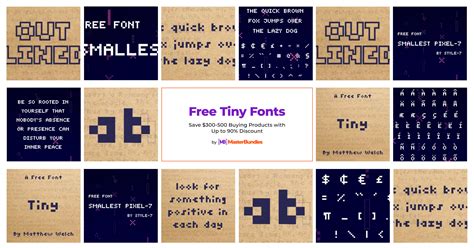
Tiny Fonts - A Guide To Small Typefaces In 2023
What are Tiny Fonts?
Tiny fonts are typefaces designed to be used at small sizes. They generally have a low x-height, meaning the distance between the baseline and the height of lowercase letters is reduced. This gives the typeface a more condensed appearance, allowing it to be used in a very small size without sacrificing legibility. In 2023, tiny fonts are more popular than ever and are widely used in a variety of print and digital projects.
Why Use Tiny Fonts?
Tiny fonts can be used for a variety of reasons. In print, they are perfect for adding captions to photographs or for smaller headlines. On the web, tiny fonts are often used for body copy, especially on mobile devices where space is limited. Tiny fonts can also be used to create a sense of space and airiness, which can be helpful when trying to communicate a minimalist or modern aesthetic.
Finding the Right Tiny Font
When looking for a tiny font, it is important to consider both the design of the typeface and its technical characteristics. Many type designers create typefaces specifically designed to be used at small sizes, so look for typefaces with low x-heights and a large character set. It is also important to consider the technical characteristics of the font, such as spacing, kerning and hinting. The right font can make a huge difference in the legibility of the text.
Examples of Tiny Fonts
There are a few popular typefaces that are commonly used for tiny fonts. These include FF Info, FF Meta, and FF Unit. All of these typefaces were designed by the renowned type designer, Erik Spiekermann, and are available for purchase from FontFont. Other popular tiny font choices include Akkurat, Tekton, and Avenir.
Tips for Using Tiny Fonts
When using tiny fonts, it is important to consider the environment in which it will be viewed. If the font is being used for body copy, it is important to make sure the text is legible when viewed on various devices and screen sizes. It is also important to consider the spacing between lines and characters when using tiny fonts. Increasing the line height and letter spacing can help improve legibility and make the text easier to read.